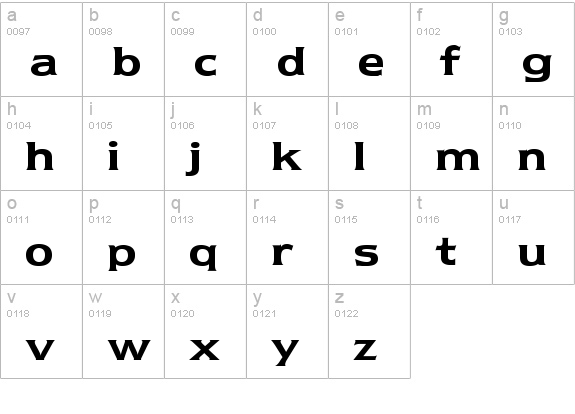
Newtext Demi is a sub-bold, structured variant in the Newtext typeface family \xE2\x80\x94 well suited to sub-headlines and emphasised passages.
Newtext Demi font is a versatile and stylish typeface that exudes elegance and modernity. With its clean lines and bold presence, this font is perfect for a wide range of design projects, from branding to editorial layouts. The Newtext Demi font strikes the perfect balance between professionalism and creativity, making it an excellent choice for anyone looking to make a statement with their typography. And the best part? Newtext Demi font is completely free to download at FontsMarket.com. This means you can access this high-quality font without any cost, allowing you to enhance your designs without breaking the bank. Don't miss out on the opportunity to elevate your projects with the Newtext Demi font - download it today and see the difference it can make in your work.